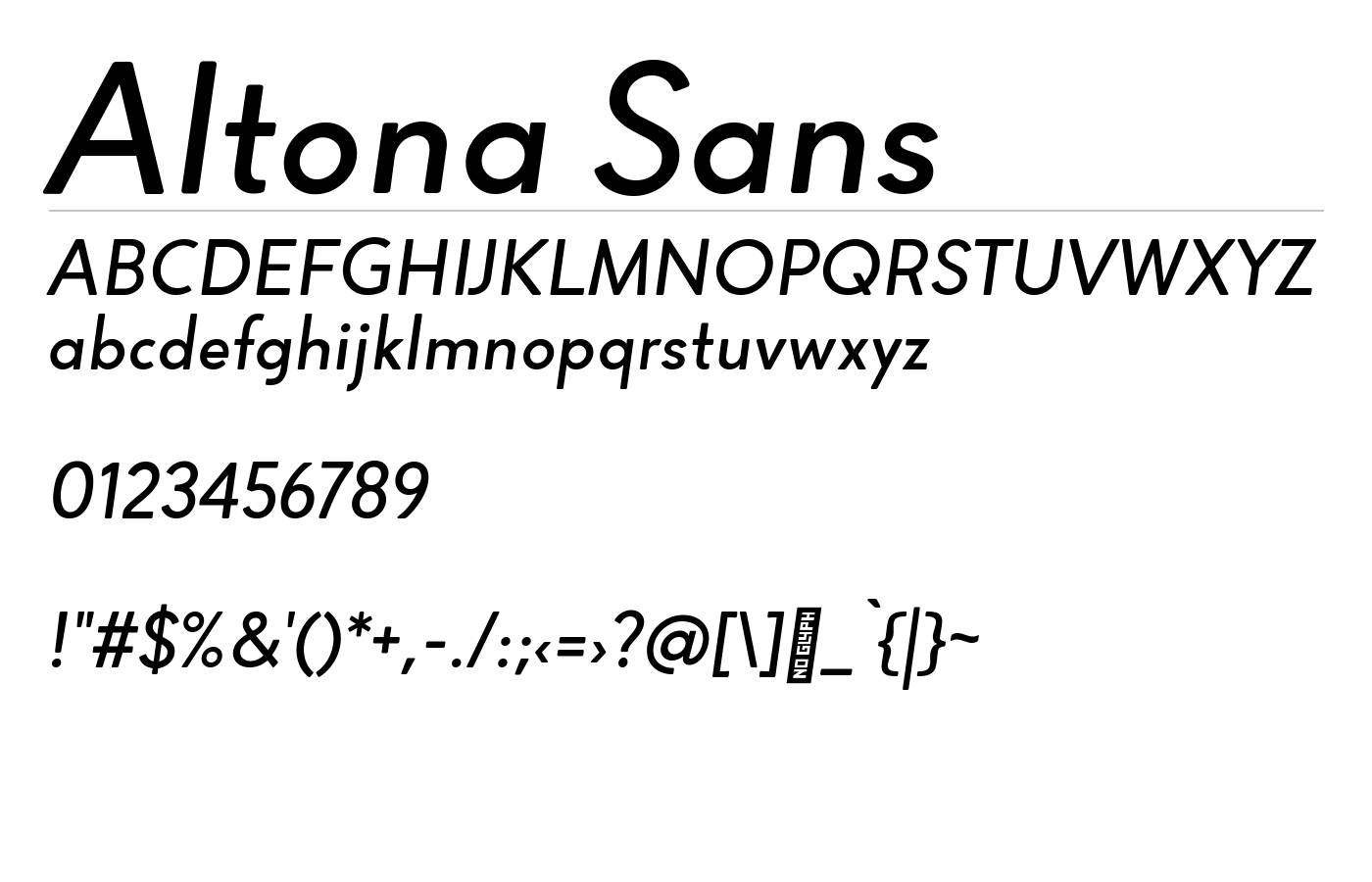
Altona Sans is a clean and modern sans serif font with a slight italic slant that adds a dynamic and approachable feel. Its medium weight, open letterforms, and moderate contrast make it highly legible and versatile, perfect for both headlines and body text in contemporary branding and editorial design. This font’s friendly yet professional style suits a wide range of uses, from websites to packaging, where clarity and sophistication are key.
Altona Sans Font